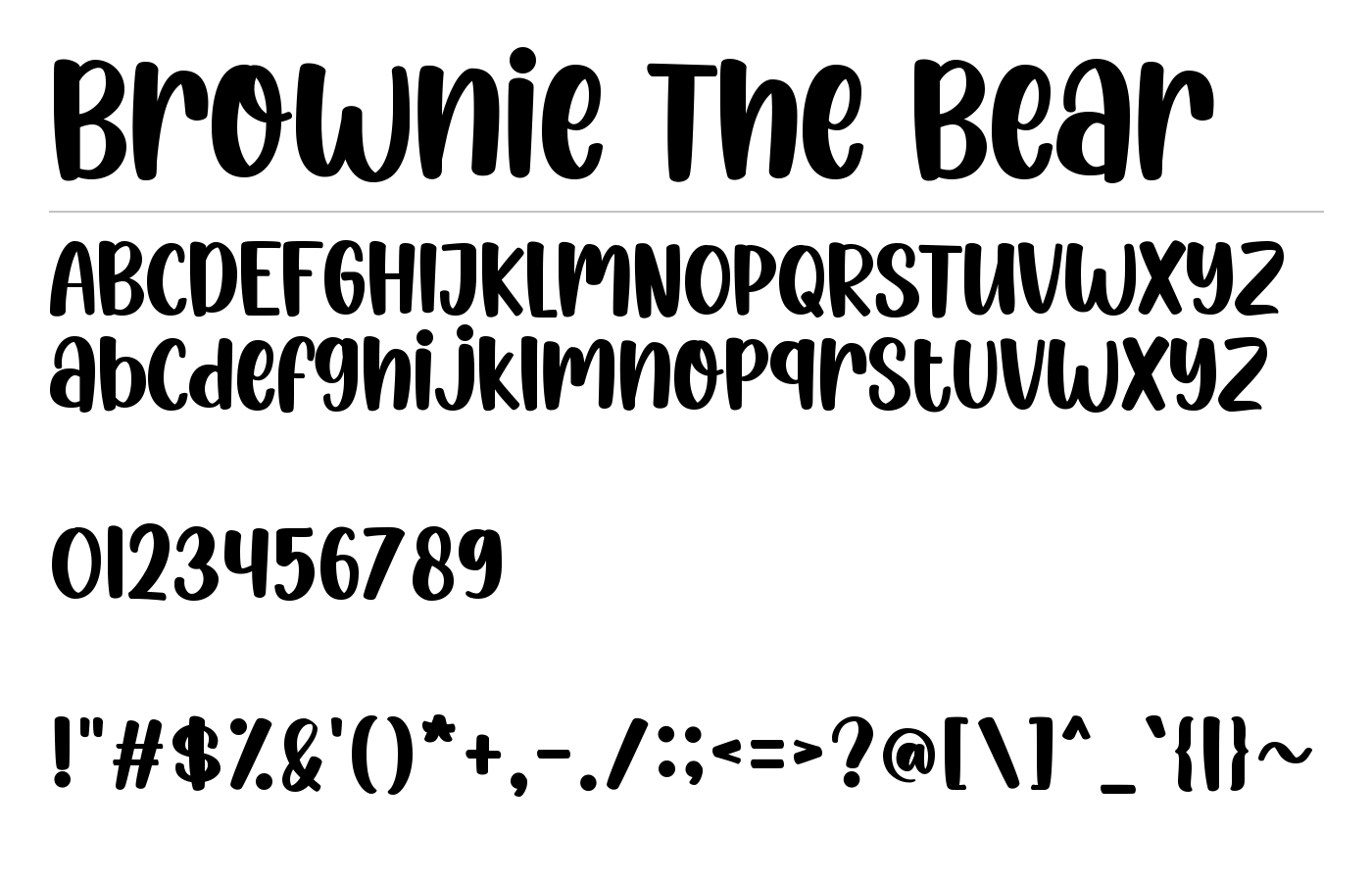
Brownie The Bear is a playful and friendly sans serif font with a hand-drawn, casual feel. Its rounded strokes and slightly irregular forms give it a warm, approachable personality, making it ideal for children's books, fun branding, and inviting headlines. This font works well where a cheerful, informal vibe is desired, adding charm and character without sacrificing readability.
Brownie The Bear Font
About Brownie The Bear Font